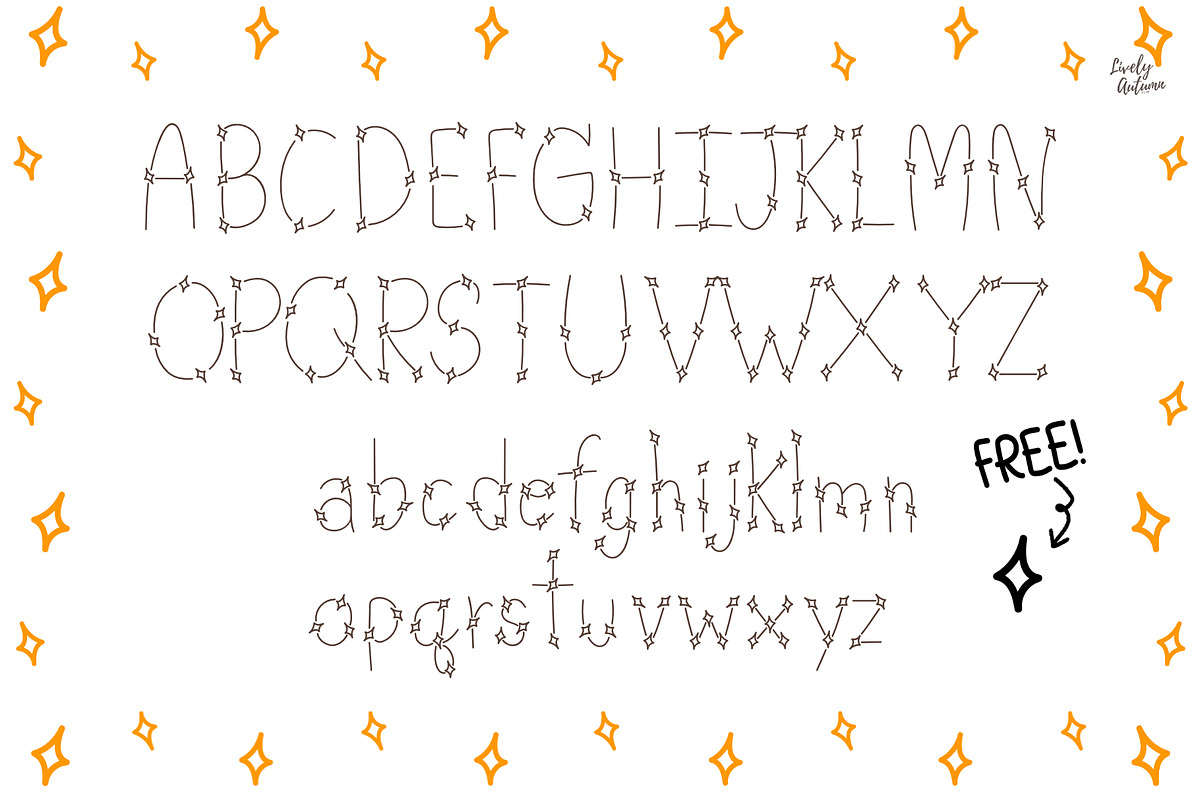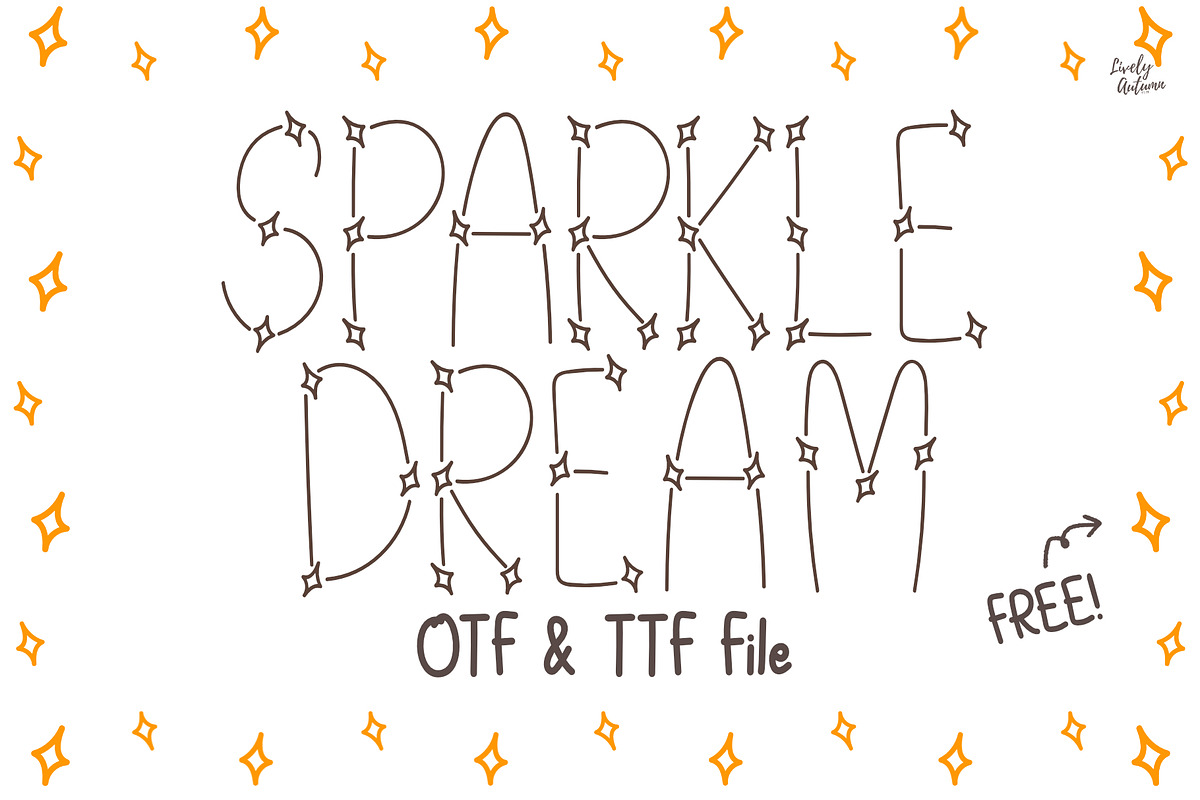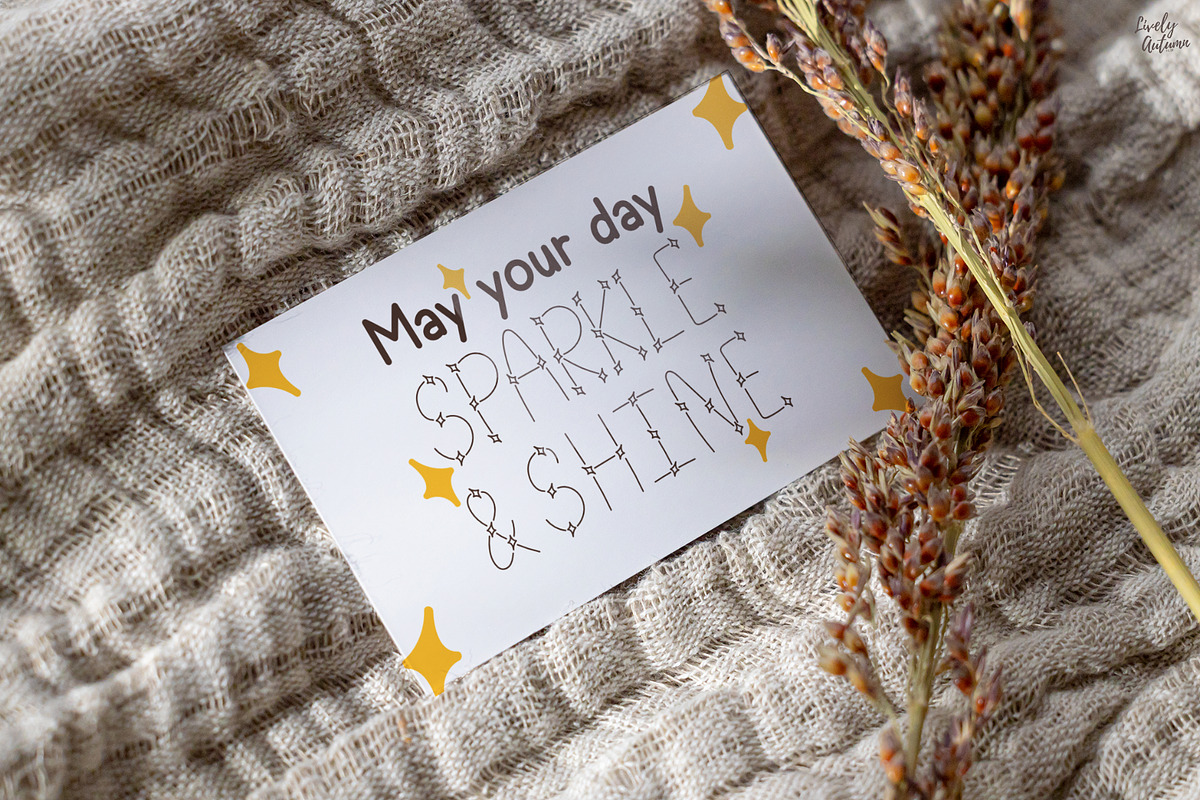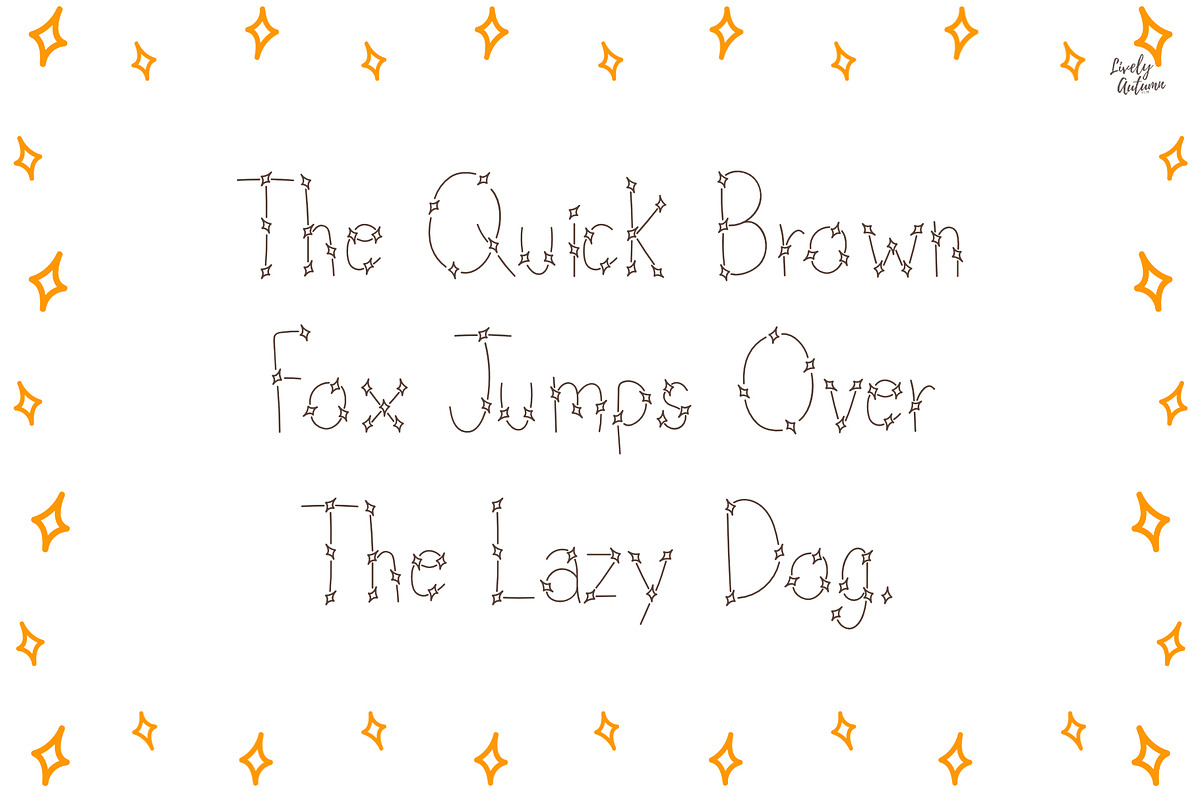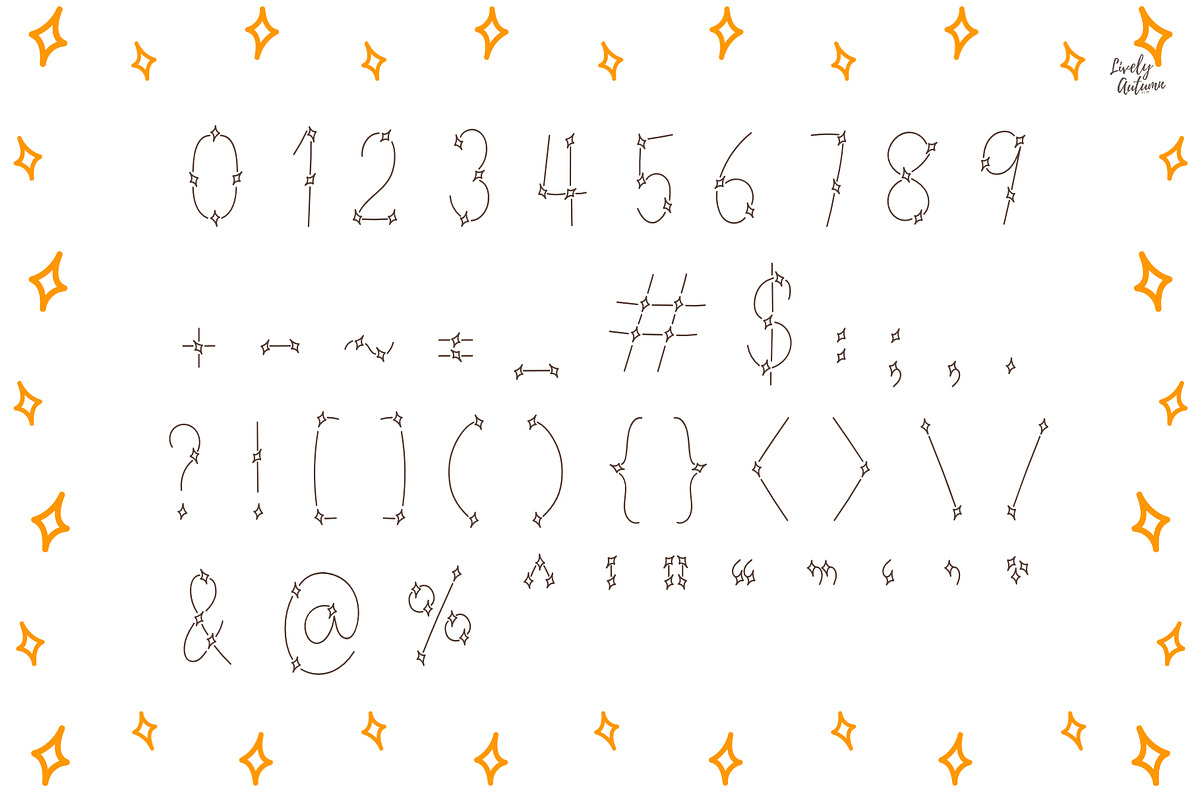
Sparkle Dream | Decorative Font
Sparkle Dream Font is a decorative font with beautiful sparkle details in each letter. Perfect for your personal projects and various projects. From invitations to posters, social media graphics, journals, greeting cards, and much more.
- Font includes: uppercase, lowercase, numbers, and punctuation.